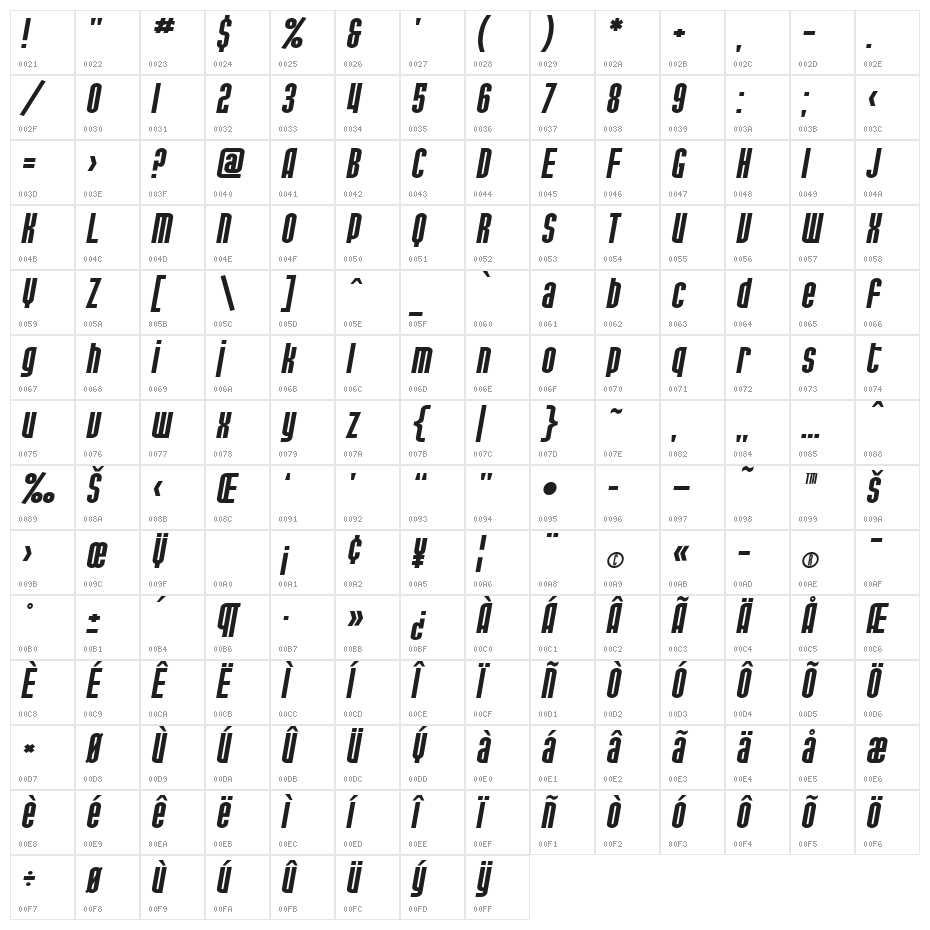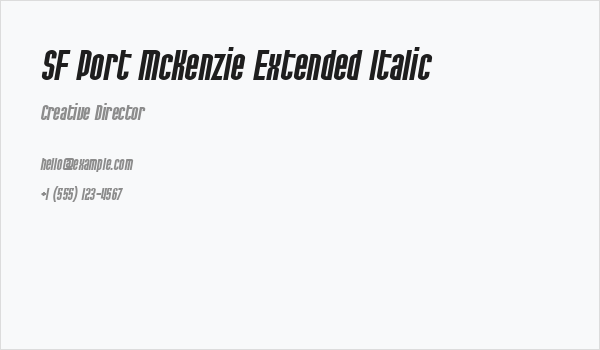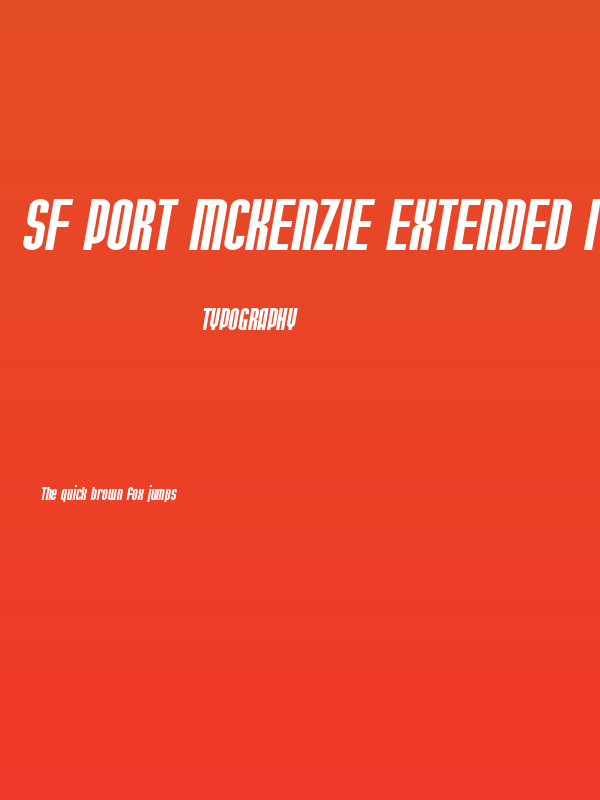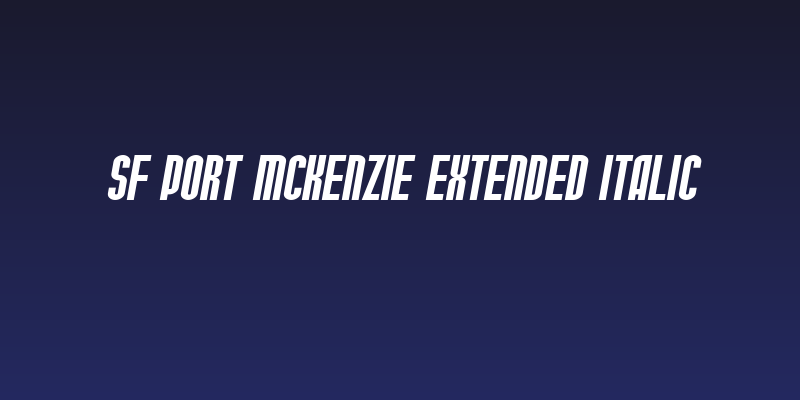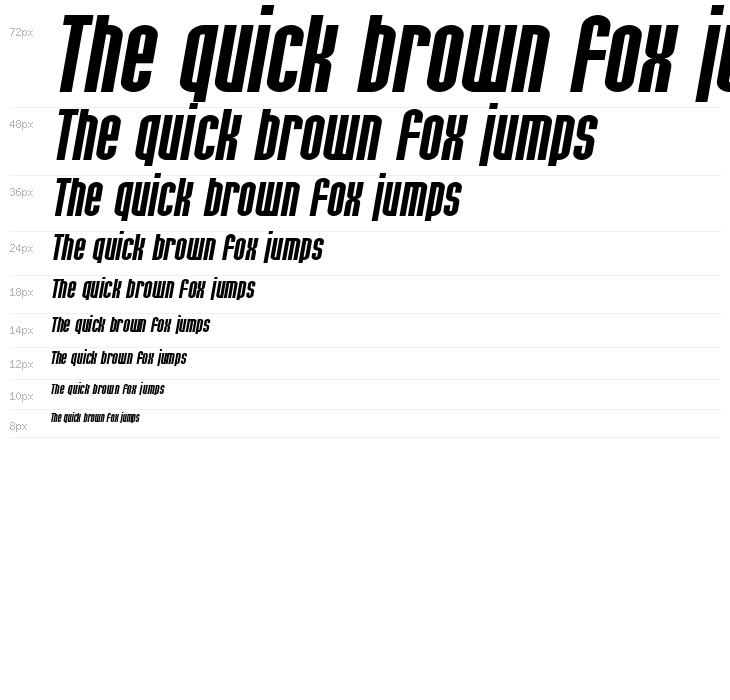
SF Port McKenzie Extended Italic Font
SF Port McKenzie Extended Italic Description
This font features a bold and dynamic style with an extended width and italic slant, creating a sense of movement and energy. The characters are tall and narrow, with a consistent stroke weight that emphasizes its boldness. The uppercase letters are particularly striking, with sharp angles and clean lines, while the lowercase letters maintain a similar aesthetic with slightly softer edges. The numerals are clear and legible, matching the overall boldness of the alphabet. Special characters are included, maintaining the same stylistic features, making this font versatile for various design needs.
| Proposed Projects | Ideal for sports branding, dynamic posters, modern advertisements, and any project needing a bold statement. |